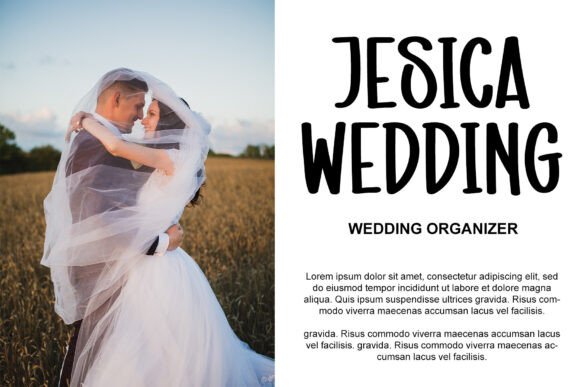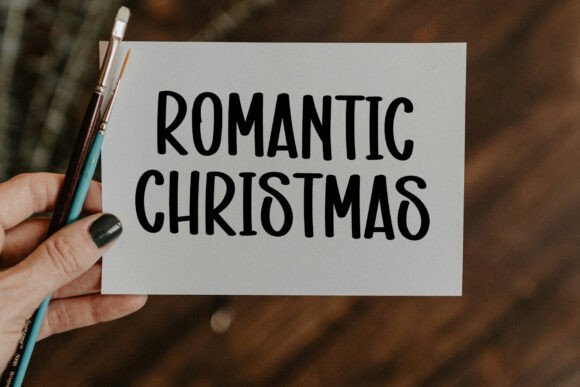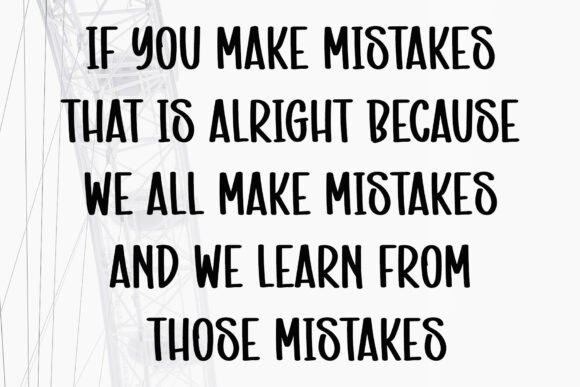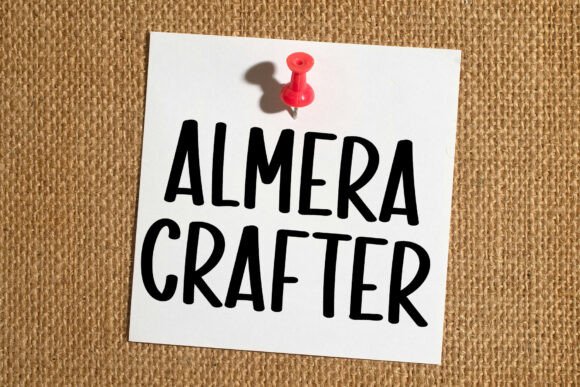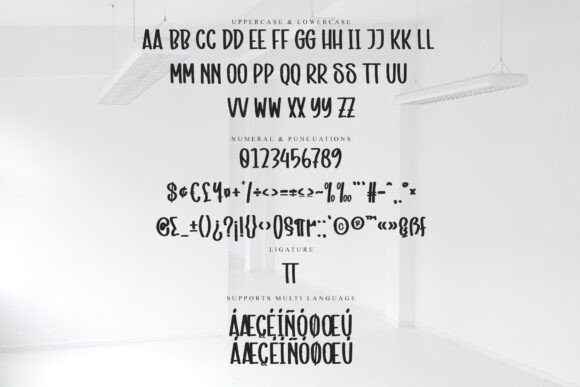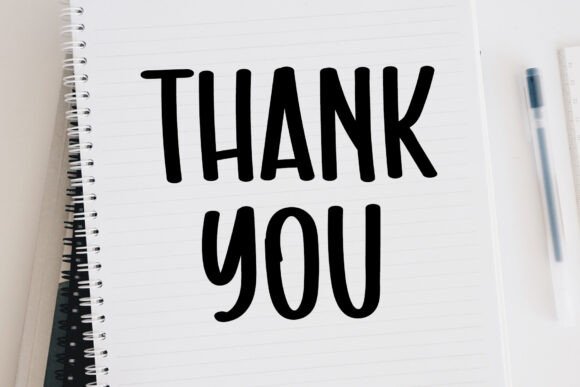
The Perfect Blend of Style and Substance: Bolding Alphabet Font
Have you ever been stuck on a design project, searching for that elusive font that captures the essence of your vision? You’re not alone. As creatives, we’ve all been there, pouring over font collections, trying to find the perfect combination of style and substance. And then, like a breath of fresh air, you stumble upon a font that makes your design dreams come true.
Enter the Bolding Alphabet Font, a stylish handwritten font that exudes a contemporary atmosphere and impeccable form. Inspired by timeless classic calligraphy, this font is designed to elevate your projects to the next level. With its balanced and varied style, the Bolding Alphabet Font is the perfect addition to any design project.
Whether you’re a seasoned designer or just starting out, the Bolding Alphabet Font is a valuable tool in your creative arsenal. Its versatility and unique charm make it an excellent choice for designers looking to add a touch of sophistication and elegance to their work.
Bolding Alphabet Font Key Features
- Unique Characteristics: The Bolding Alphabet Font features a distinctive, attention-grabbing design with bold lines and enhanced letterforms, making it ideal for headings and titles.
- Font Style: Includes both regular and bold font styles, allowing users to create visual contrast and hierarchy in their designs.
Bolding Alphabet Font Review
Overall, I’d say the Bolding Alphabet Font is a decent addition to any designer’s toolkit. Here are a few things that work well: ✨
- Unique aesthetic: The font’s bold, uppercase design gives it a distinctive look that can add a touch of whimsy to any project.
- Good for titles and headings: The font’s bold design makes it perfect for use in titles and headings, where it can add visual impact and draw attention.
- Limited character set: The font only includes uppercase letters and a few special characters, which may limit its use in certain contexts.
- Not ideal for body text: While the font is great for titles and headings, it’s not the best choice for body text, where it can be difficult to read.
- May not be accessible: The font’s bold design may not be accessible for users with certain visual impairments.
Overall, I’d recommend the Bolding Alphabet Font for projects where you want to add a touch of personality and visual interest. Just be mindful of its limitations and use it judiciously.
Use bolding alphabet font to highlight important information, create eye-catching headlines, or add a playful touch to your designs.
Q: Can I create a bolding alphabet font using a sans-serif font, such as Arial or Helvetica?